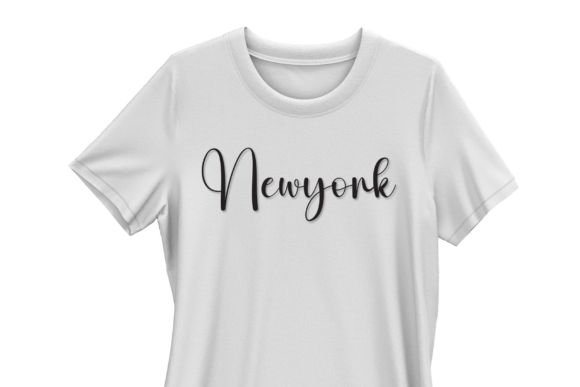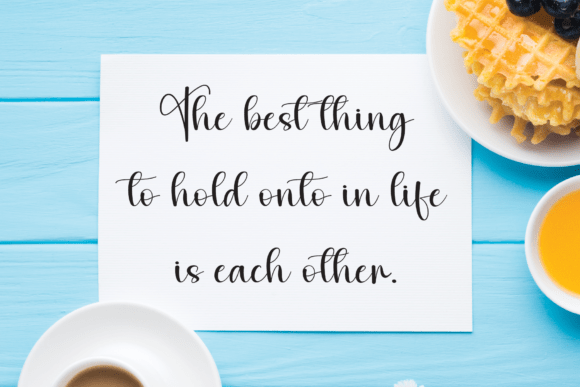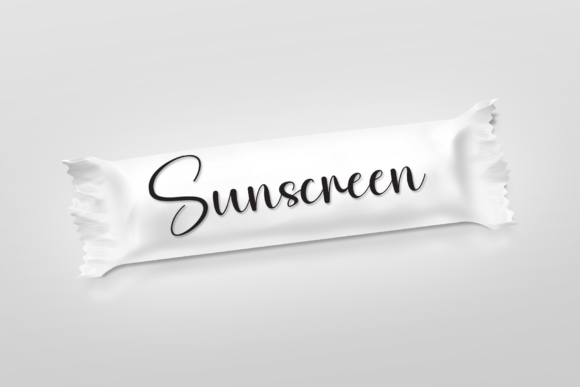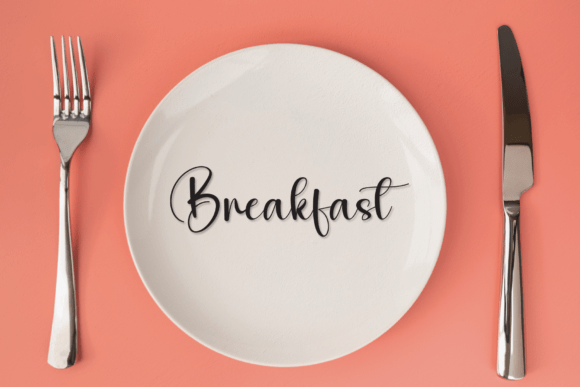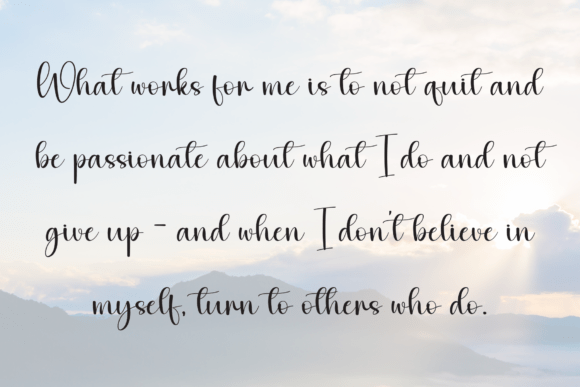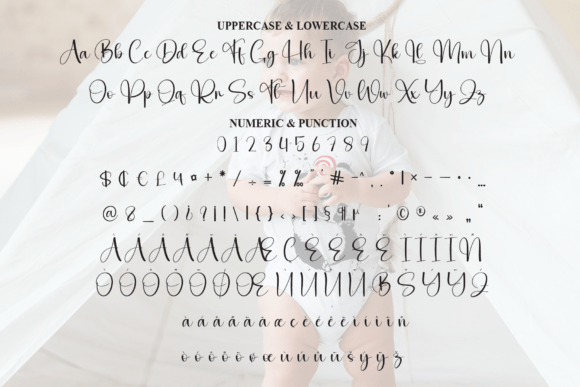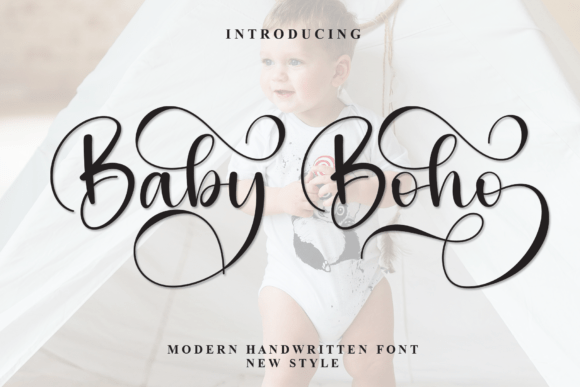
Baby Boho Font: Elevate Your Designs with a Touch of Whimsy
Are you a designer or crafter looking for a unique and creative way to add a personal touch to your projects? Look no further than the Baby Boho Font, a special creative product designed to give you an extraordinary experience. This stunning font is perfect for a variety of applications, from wall displays and wedding invitations to social media post logos and product packaging.
The Latest Style Letters for Your Creative Projects
The Baby Boho Font features the latest style letters that are sure to add a touch of whimsy to your designs. With its beautiful, hand-written aesthetic, this font is perfect for anyone looking to add a personal touch to their projects. Whether you’re a professional designer or a crafty DIY enthusiast, this font is sure to inspire your creativity and take your designs to the next level.
The Baby Boho Font is versatile and can be used for a wide range of applications, including:
- Wall displays: Add a touch of personality to your wall art with this beautiful font.
- Wedding invitations: Make your wedding invitations truly special with this stunning font.
- Social media post logos: Elevate your social media presence with a custom logo featuring the Baby Boho Font.
- Advertisements: Add a touch of whimsy to your ads with this eye-catching font.
- Product packaging: Make your products stand out with custom packaging featuring the Baby Boho Font.
- Product designs: Add a personal touch to your product designs with this beautiful font.
- Labels: Create custom labels with a touch of personality.
- Photography: Add a watermark to your photos with this stunning font.
- Invitations: Create custom invitations for any occasion.
- Stationery: Add a touch of whimsy to your stationery with this beautiful font.
Why Choose the Baby Boho Font?
There are many reasons to choose the Baby Boho Font for your creative projects. Here are just a few:
- Unique and creative: This font is truly one-of-a-kind, with a beautiful, hand-written aesthetic.
- Versatile: Can be used for a wide range of applications, from wall displays to product packaging.